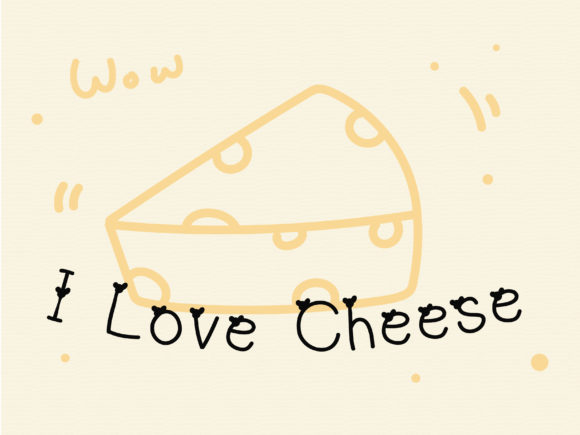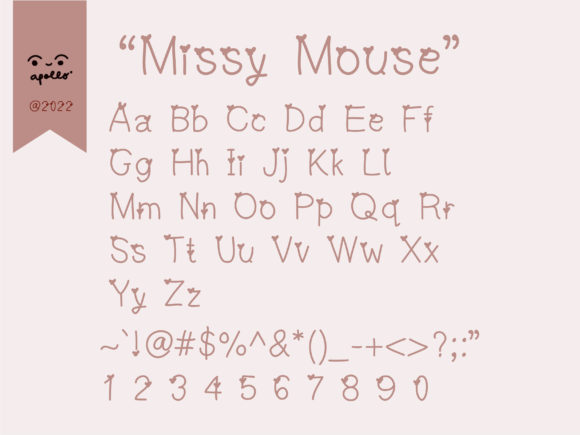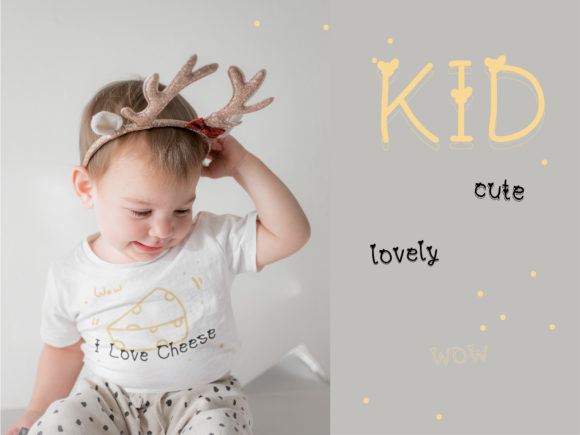
Introduction to Missy Mouse Font
Missy Mouse is a cute and friendly handwritten font.
| 👤 Author | Apollo no.64 |
Add this romantic looking font to each of your love letters, wedding invitations or favorite design ideas, and you will be astounded by the outcome .